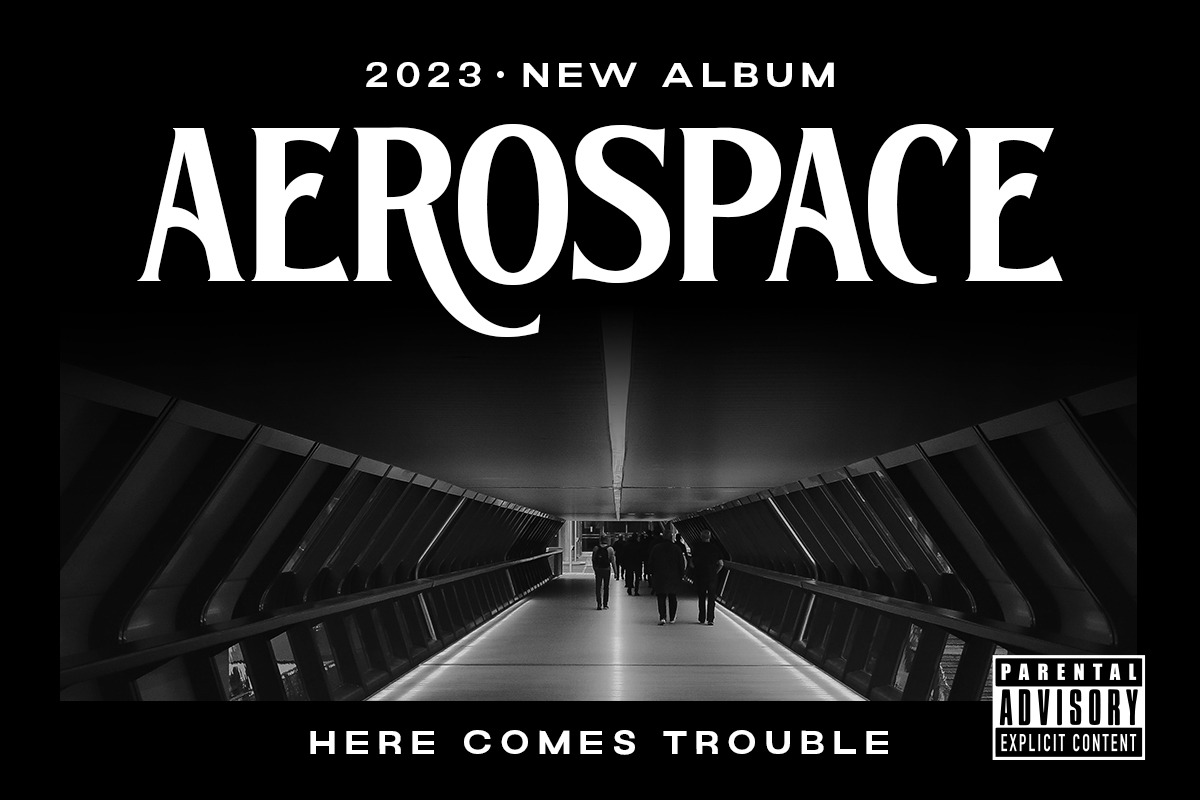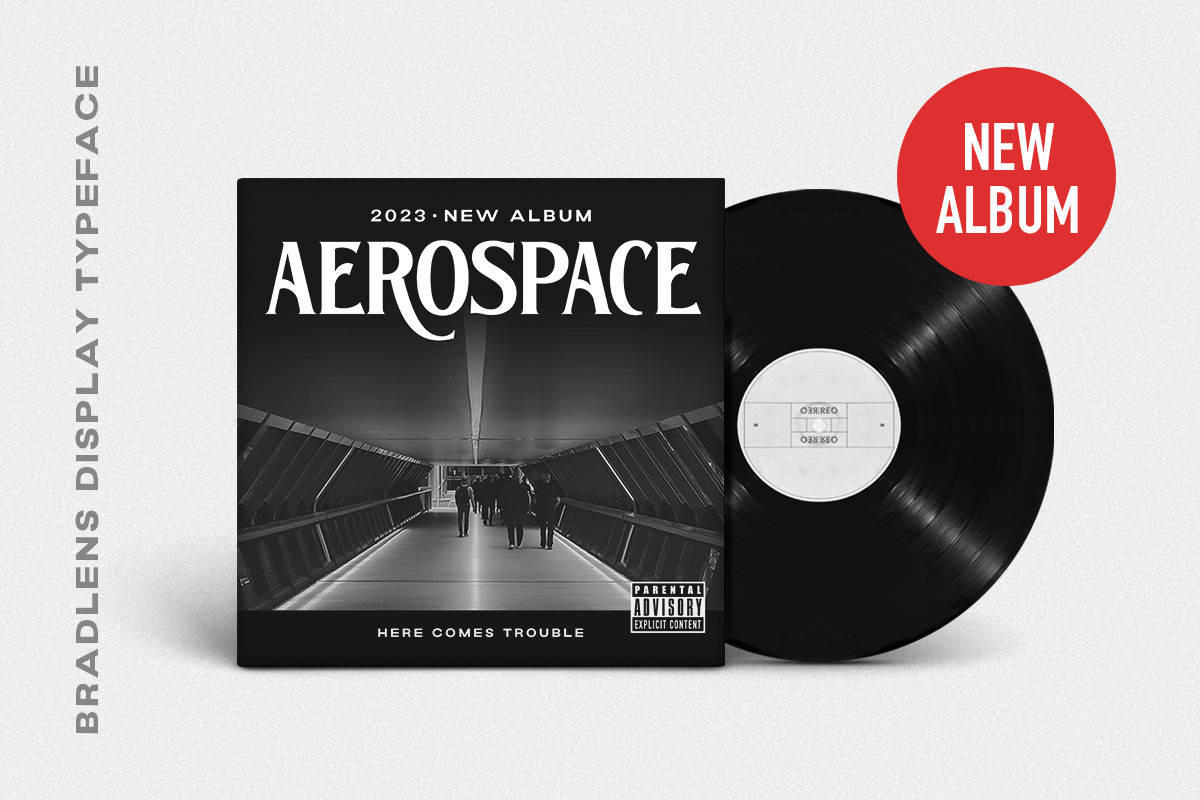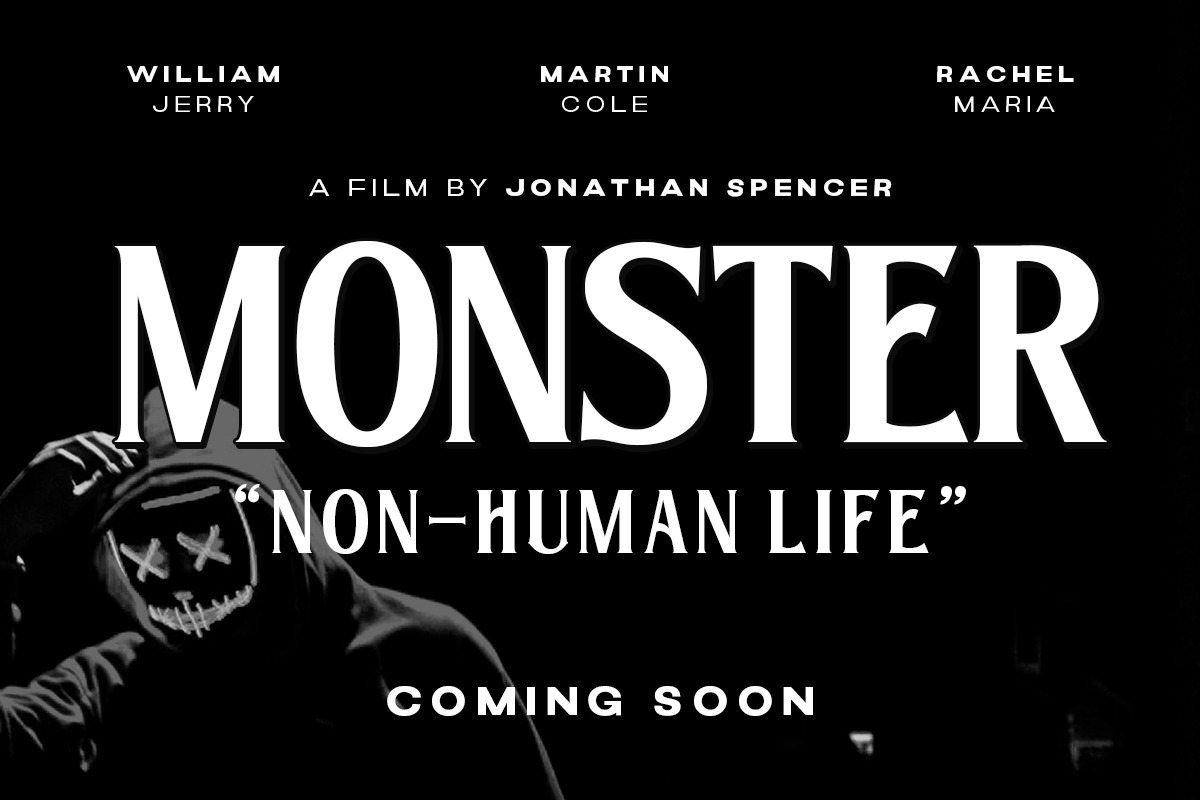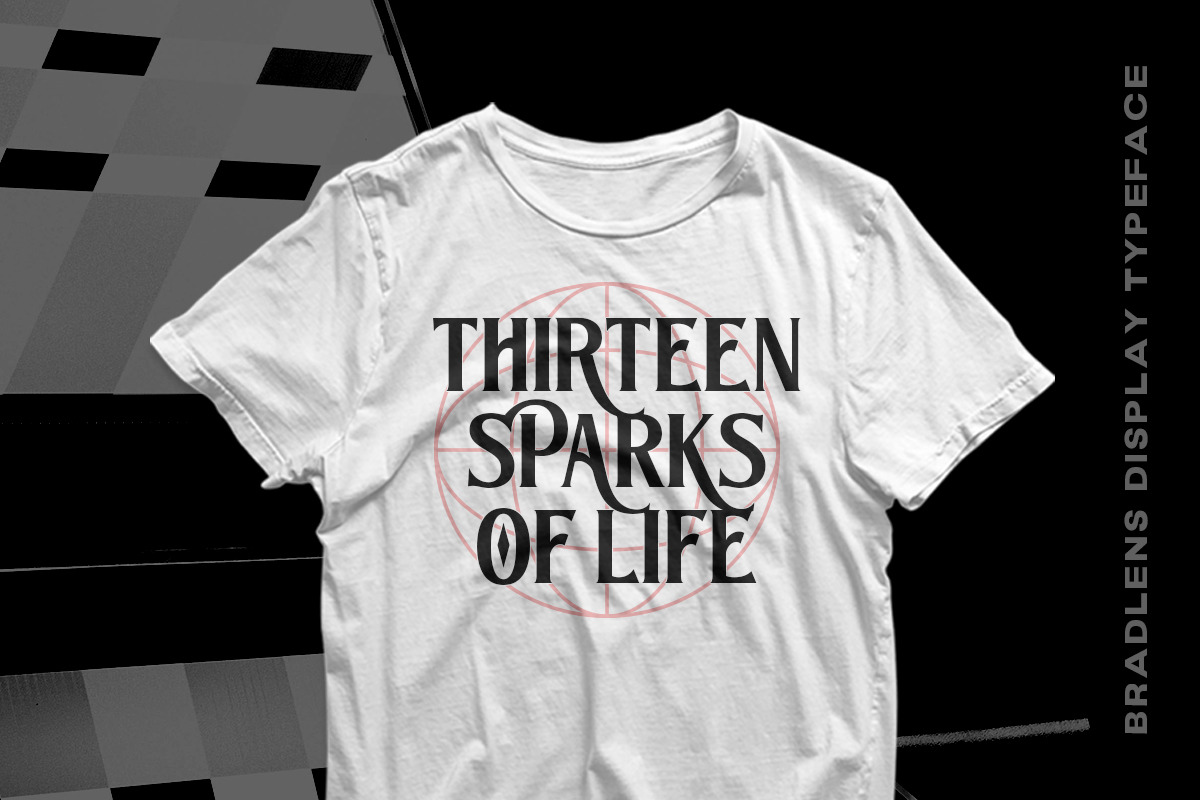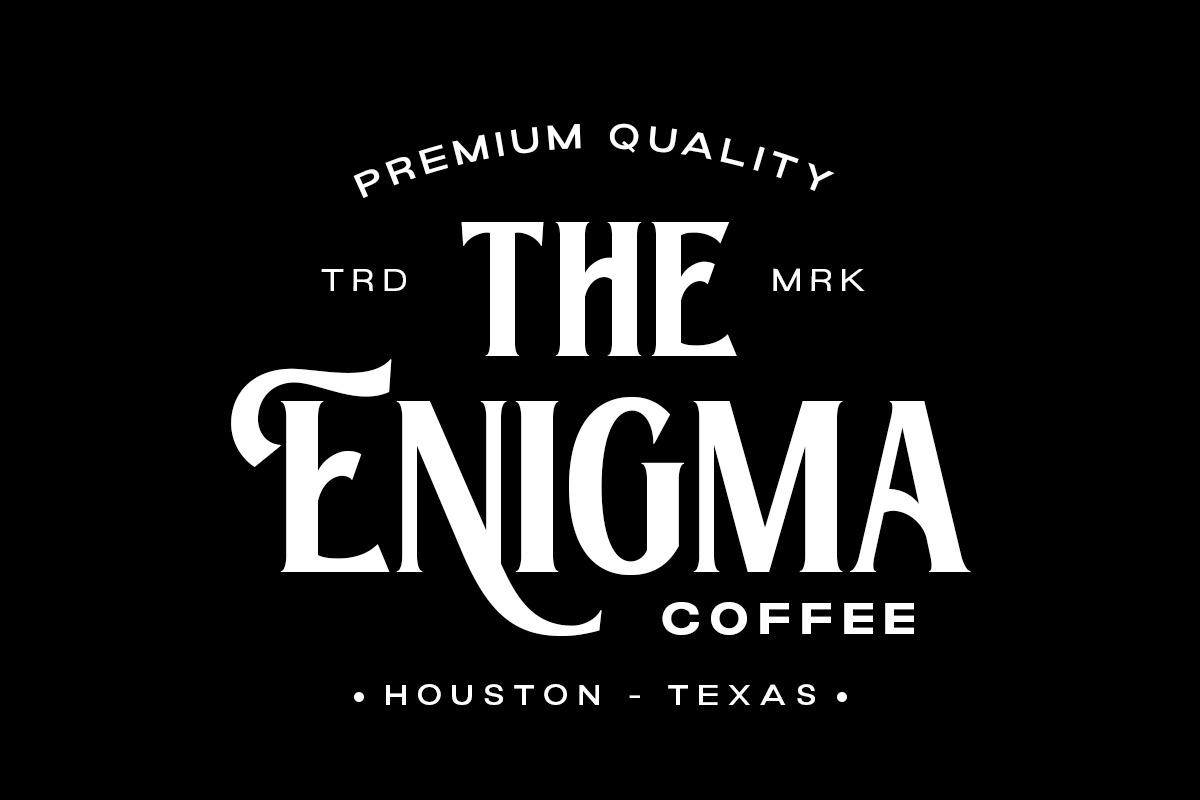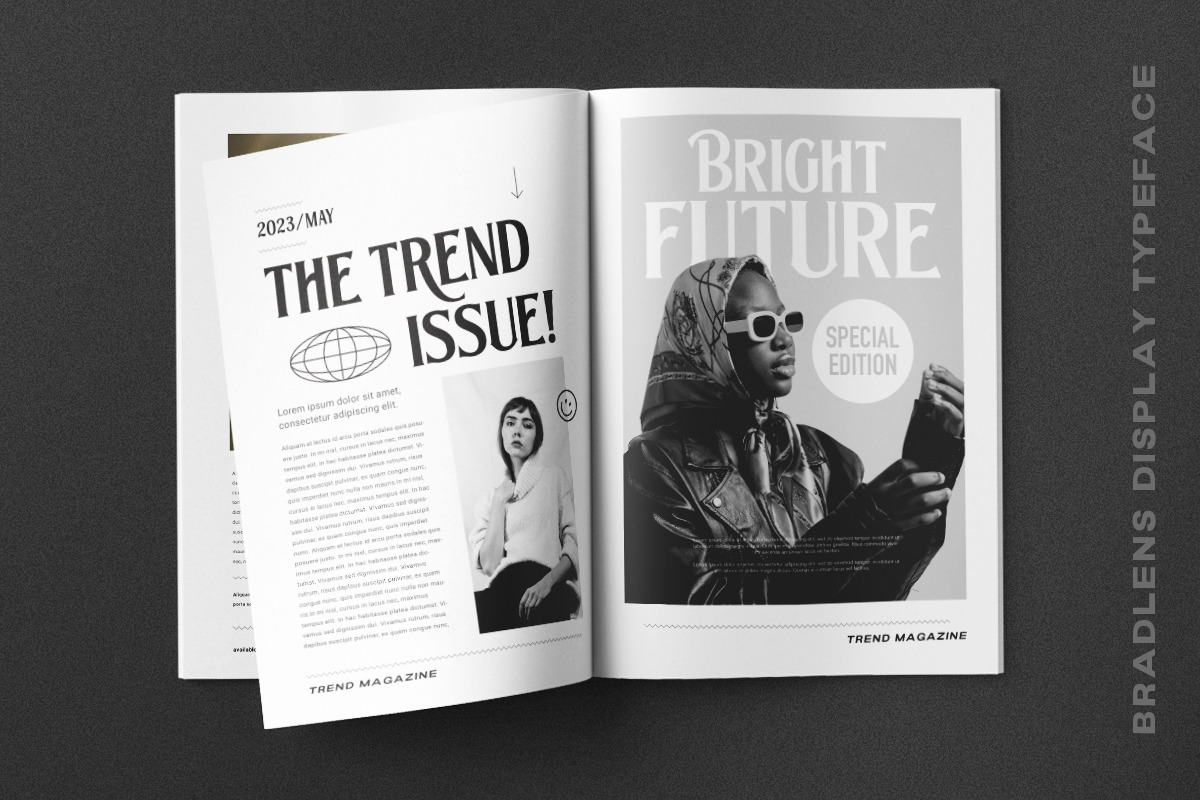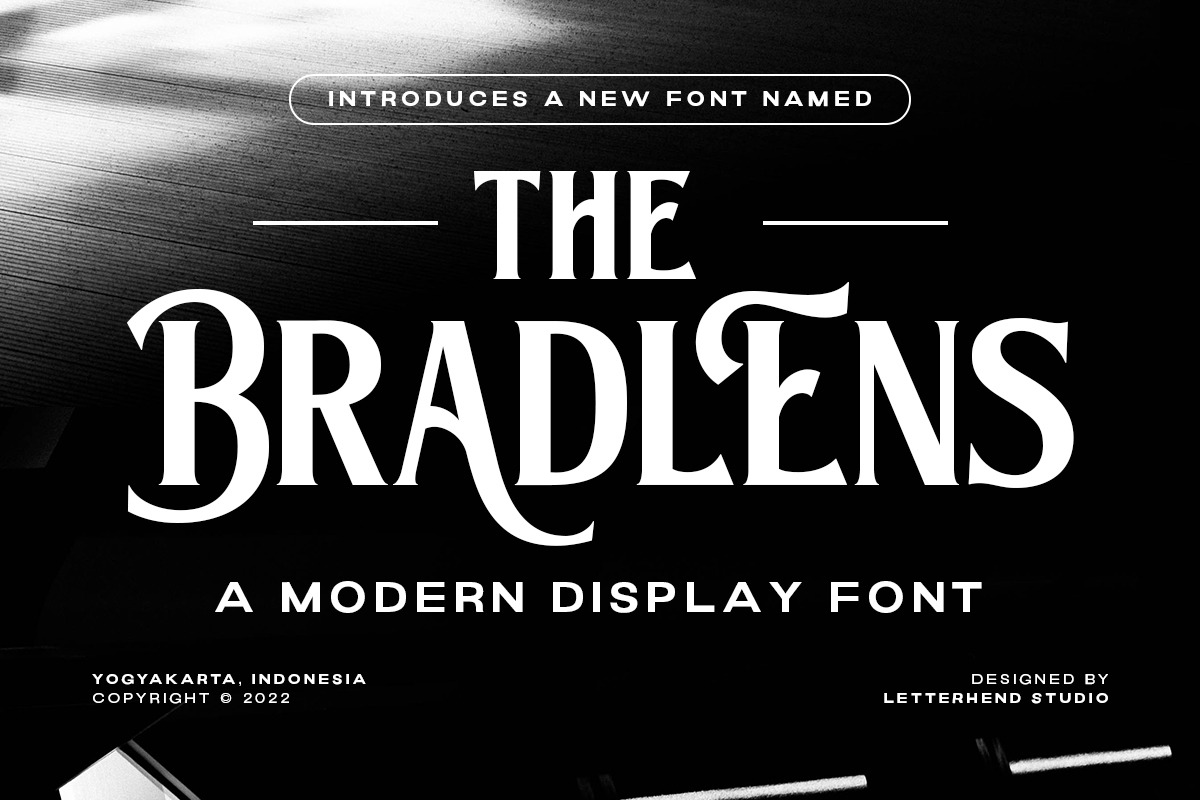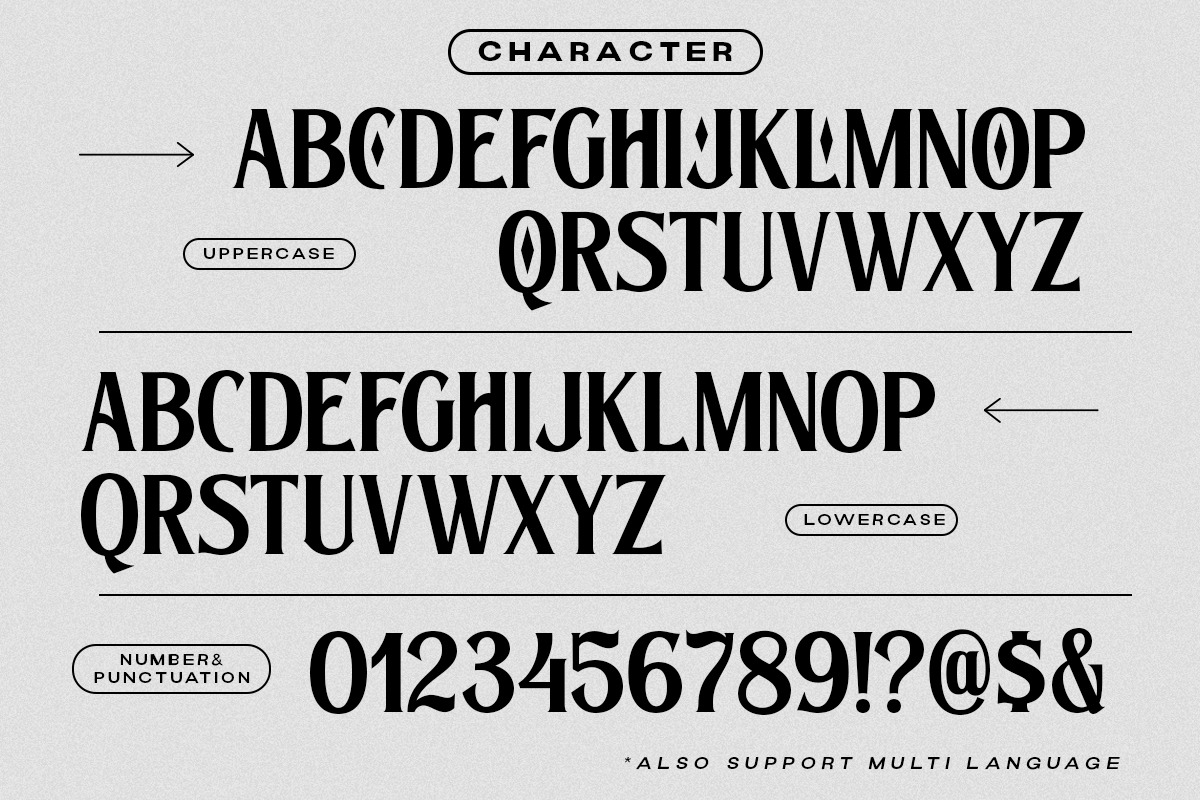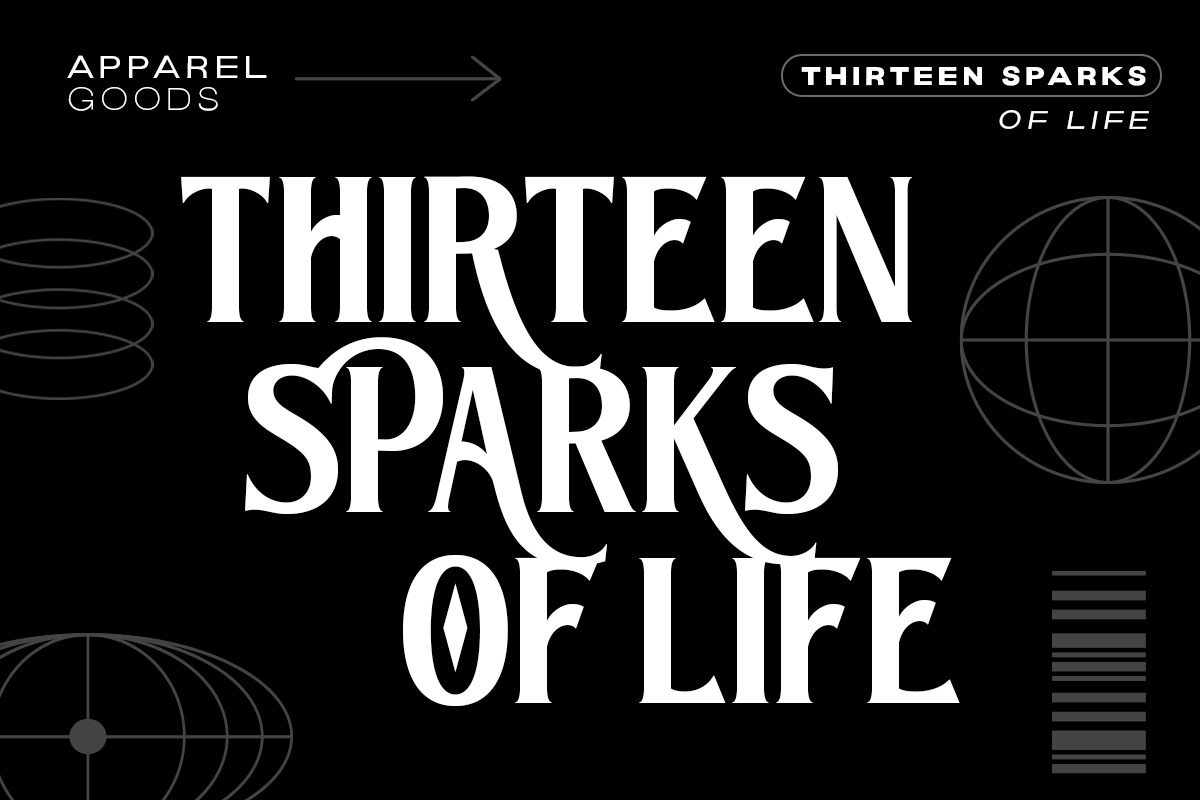
The Bradlens - Modern Display Font
The Bradlens is a sophisticated modern display font. This typeface has been made carefully to make sure its premium quality and luxury feel. This typeface has can be used for modern theme or vintage looks. Very suitable for logo, headline, tittle, and the other various formal forms such as invitations, labels, logos, magazines, books, greeting / wedding cards, packaging, fashion, make up, stationery, novels, labels or any type of advertising purpose.